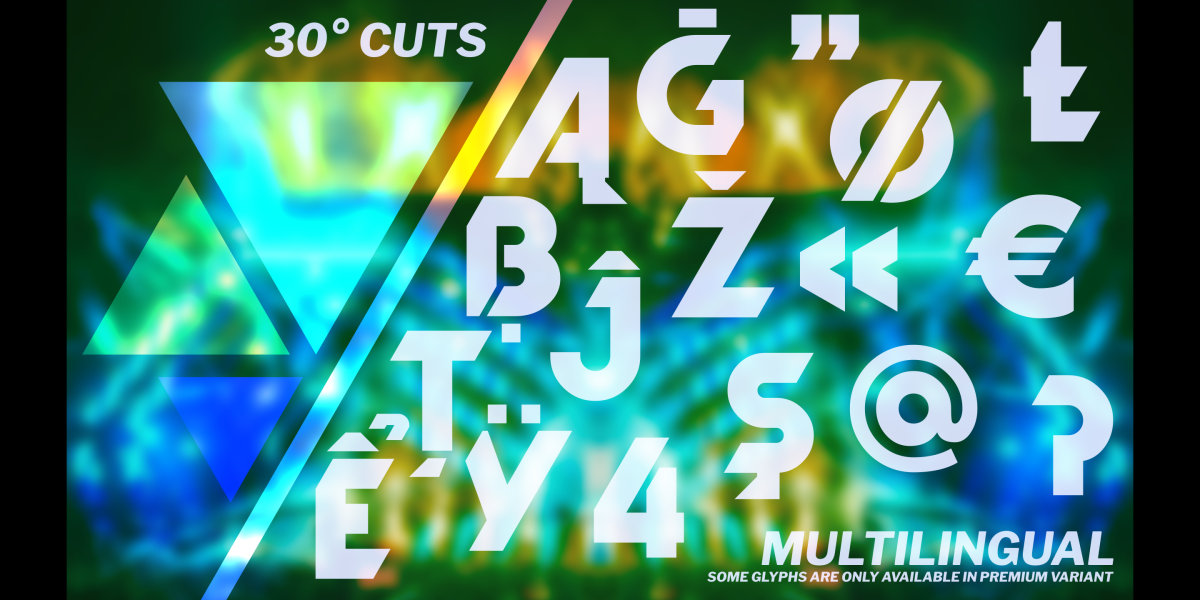
Running Start Basic Font
Baaam! Here comes Running Start, a bold, monoline display font with 30° slanted cuts, contextual forms, and an absurd amount of multilingual support (in full version).
The design is inspired by the capital subset of “Dynamo” (Karl Sommer, 1930) and “New Zelek” (Stanisław Zelek, 1974), a.k.a. “Slant” or the old Microsoft logo font.
Note: The OpenType features in this font, including kerning and contextual alternatives for K, R, and T, may not be compatible with your software. The alternative glyphs for K, R, and T can be found in the Private Use Area.